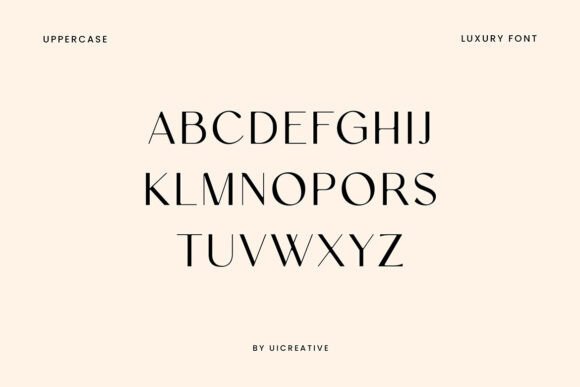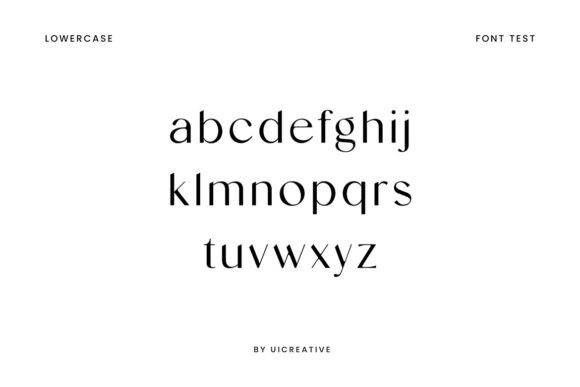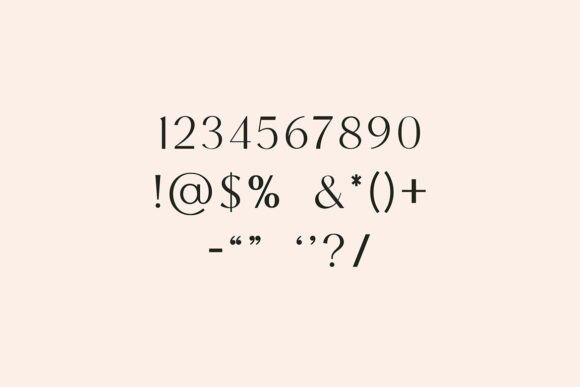
Elaine Kinandhita Font: Elevate Your Designs with Elegance and Sophistication
In the world of typography, a font can make or break the aesthetic of a design project. For designers and crafters seeking a modern display font that exudes class, elegance, and style, look no further than Elaine Kinandhita. This stunning sans serif font is versatile, sophisticated, and perfect for a wide range of applications.
Introducing Elaine Kinandhita Classy Sans Serif Font
Elaine Kinandhita is a beautifully crafted font that boasts a modern and sleek design. Its clean lines, precise curves, and balanced proportions make it an ideal choice for designers seeking a sophisticated and elegant typographic solution. This font is perfect for projects that demand a high level of refinement, such as luxury branding, high-end fashion, and premium products.
Elaine Kinandhita is incredibly versatile and can be used for a wide variety of design projects, including:
• Signature and stationery designs
• Logo creation and branding
• Wedding and event typography
• Magazine and book covers
• Website headers and UI design
• Fashion-related branding and editorial design
Whether you’re designing for print or digital platforms, Elaine Kinandhita is the perfect choice for adding a touch of elegance and sophistication to your work.
Masculine and Feminine Qualities
One of the standout features of Elaine Kinandhita is its ability to convey both masculine and feminine qualities. This makes it an excellent choice for fashion-related branding and editorial design, where the font needs to appeal to a wide range of audiences. The font’s clean and modern design ensures that it remains neutral, yet stylish and sophisticated.
Why Choose Elaine Kinandhita?
So, why should designers and crafters choose Elaine Kinandhita for their projects? Here are just a few compelling reasons:
• Elegance and sophistication: Elaine Kinandhita exudes refinement and poise, making it perfect for high-end designs.
• Versatility: This font can be used for a wide range of projects, from print to digital.
• Masculine and feminine appeal: Elaine Kinandhita’s neutral design makes it suitable for a broad audience.
• Modern and sleek: This font is perfect for designers seeking a contemporary typographic solution.
In conclusion, Elaine Kinandhita is an exceptional font that offers designers and crafters a unique opportunity to elevate their designs with elegance and sophistication. Its modern sans serif design, versatility, and masculine and feminine qualities make it an ideal choice for a wide range of projects. Whether you’re working on a luxury branding campaign, a fashion editorial, or a personal design project, Elaine Kinandhita is sure to impress.